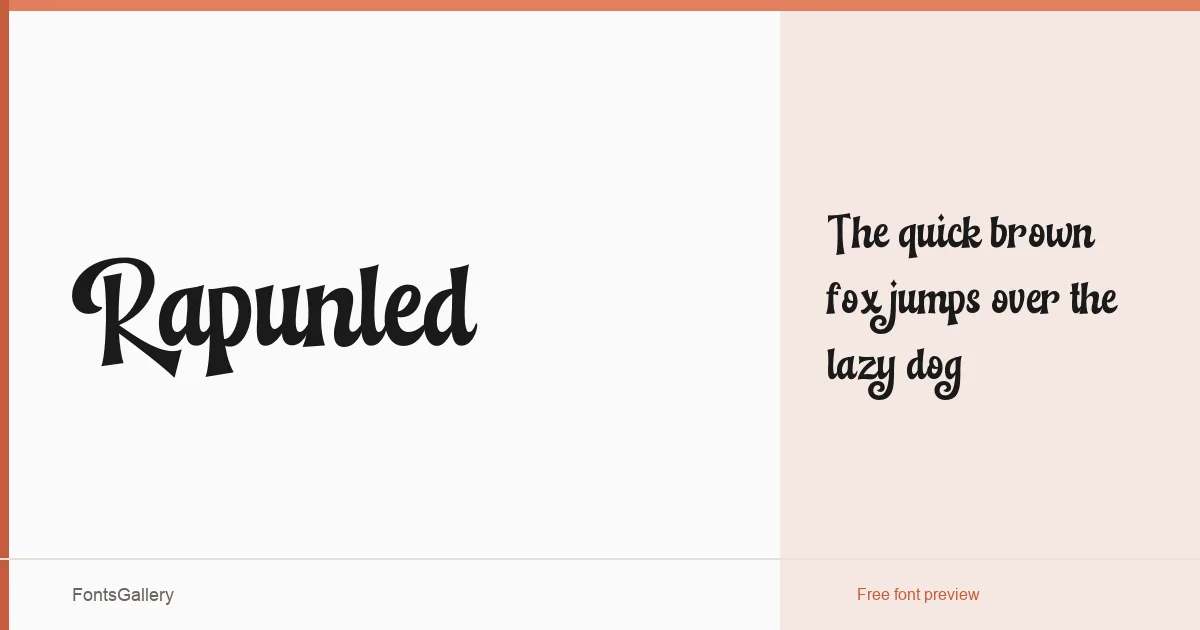
About Rapunled Font
Rapunled is a script typeface crafted by Lettersweet, combining an elegant charm with a bold, playful energy that makes it instantly eye-catching. Its vintage character gives it a timeless quality, while its expressive style ensures it feels fresh and dynamic. This font strikes a confident balance between refinement and personality, making it a versatile choice for creative projects.
As a script font, Rapunled features flowing, hand-crafted letterforms that exude elegance and vintage sophistication. Its bold strokes add a sense of drama and presence, while playful curves and flourishes keep the overall feel warm and approachable. The characters carry a lively, expressive energy that draws the eye and communicates personality with ease.
Rapunled is ideally suited for logos, posters, branding materials, social media graphics, and t-shirt designs where a bold, characterful headline is needed. Its vintage elegance makes it especially effective for boutique branding, event promotion, and lifestyle-focused visual content. For a striking combination, pair Rapunled with Aresink for a complementary handcrafted feel, or with Helvetica for a clean, modern contrast that lets the script take center stage.